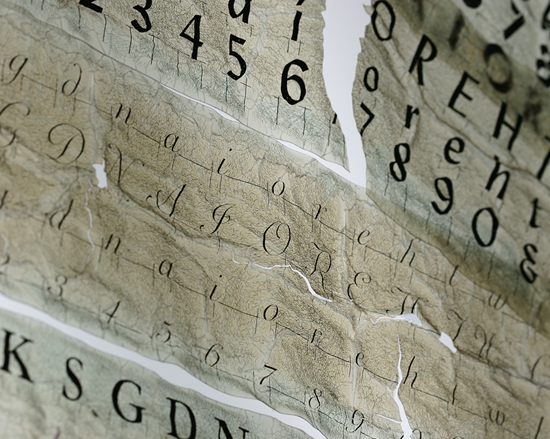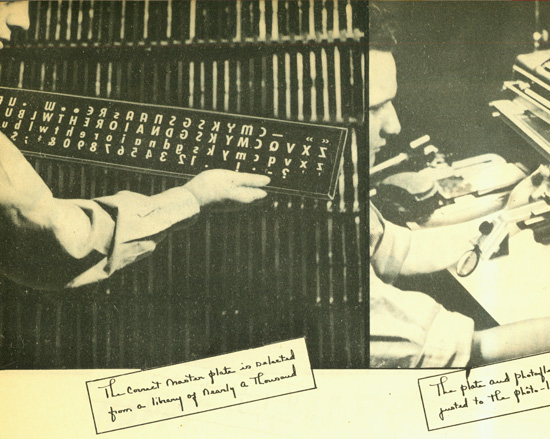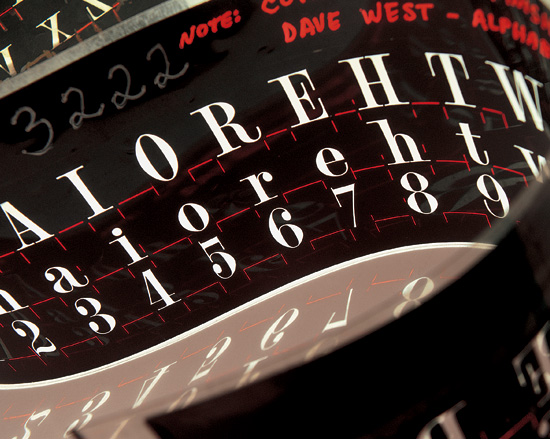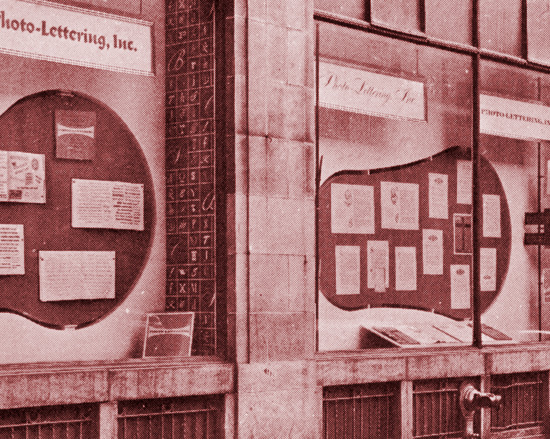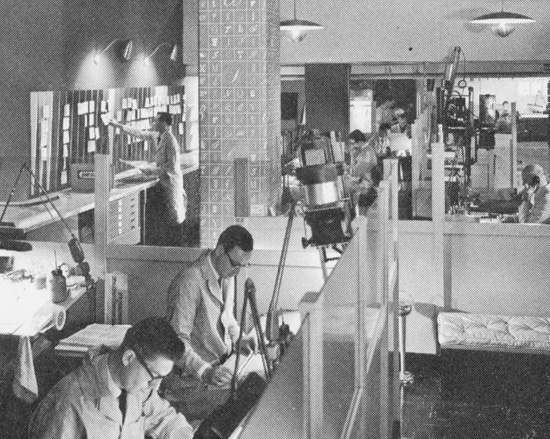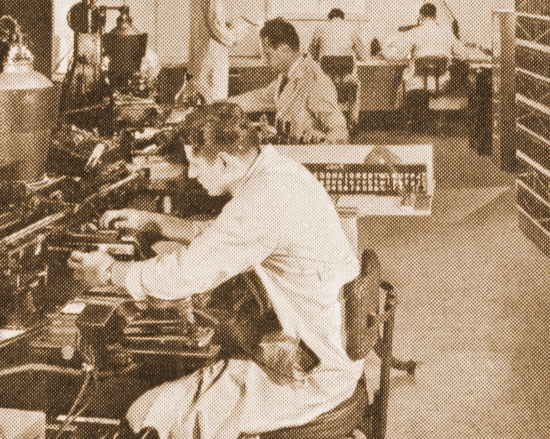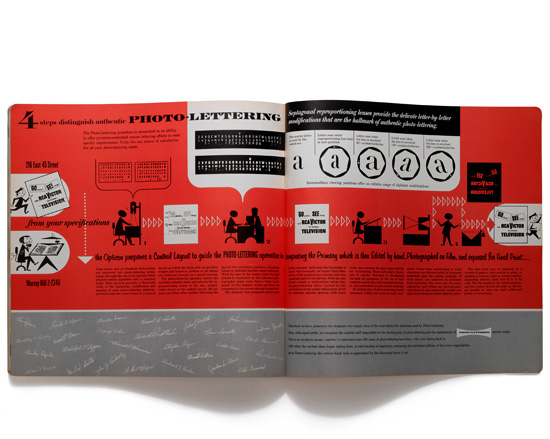
Photo-Lettering was one of the earliest and most successful type houses to utilize photo technology in the production of commercial typography and lettering. Photo-Lettering enjoyed a significant advantage over its competitors with its purpose-built exposure units, expert staff and a sophisticated workflow.
PLINC, as it was affectionately known to art directors, was a mainstay of the advertising and design industry in New York City from 1936 to 1997. In the days before facsimile, flatbed scanners and email, copper borne telephone instructions buzzed beneath the streets while couriers beat a well-worn path between Madison Avenue advertising agencies and Photo-Lettering’s Murray Hill facility.
Each of Photo-Lettering’s alphabets took over 200 hours to complete, originally drawn with pen and ink by veteran lettering artists. These alphabets were originally exposed on glass plates, but eventually were converted to film. Photo-Lettering films are approximately 28 in (71 cm) wide by 5 in (13 cm) tall.
After receiving an art director's instructions by telephone (imagine that) or courier, a Photo-Lettering artist would compose a tight comprehensive. This was done using a smaller version of the alphabet film called a layout plate and a specialized device called an Opticon to project a sharp image of each character with which to create a penciled version of the headline.
The composed headline was then handed off to an operator of a proprietary purpose-built exposure unit called The Rutherford, which was named after the New Jersey tri-city area in which it was invented. The Rutherford allowed an operator to expose characters directly from original films while following penciled comprehensives from the Opticon.
The Rutherford was a key instrument in Photo-Lettering’s reputation for delivering clean, crisp, high quality artwork because it always provided a first-generation exposure of each character. Most Photo-Lettering competitors manually composed headlines by manually pasting each letter. By the time process lettering reached the customer it was at the very least four times photographically removed from the original.
Before making the run back into Madison Avenue's busy warren of advertising agencies, a Photo-Lettering artist would check each headline and make manual corrections as needed. This critical part of Photo-Lettering’s workflow is a historical lesson that has been lost on the digital generation of desktop designers.
This spread from a Photo-Lettering catalog illustrates the process. While art directors barking headline instructions may not have looked as happy as they are represented here, a courier returning a perfectly-rendered headline must have put a smile on their faces. The advent of digital desktop typography dramatically and catastrophically removed this level of professionalism and its finely-tuned set of checks and balances from display lettering.
Even in 1970 dollars, a headline from Photo-Lettering was a steal considering the effort dedicated to each project.
House Industries’ relationship with Photo-Lettering began indirectly in 1999 with an article on Ed Benguiat for the second issue of our now-defunct House magazine. Ed penned the original logo for pop-culture classic Planet of the Apes, so we illustrated him as a learned Doctor Zaius. Stories that went along with Ed's thirty years as Photo-Lettering's alphabet genius-in-residence inspired us to dig deeper into PLINC’s legacy of letters.
Ed Benguiat became our emissary to the forgotten Photo-Lettering world, and in 2002 House lettering guru Ken Barber began distilling five of Benguiat’s PLINC alphabets into digital fonts. It was our first exercise in taking an alphabet that was originally engineered with PLINC’s workflow in mind and digitally bypassing the human element with modern application- and system-side engineering.
Starting with Photo-Lettering catalogs, several period specimens and some moral support from Ed Benguiat, Ken Barber started the process of interpreting and redrawing each of the five alphabets.
Since we did not have access to the original Photo-Lettering films at the beginning of the project, Ken’s challenge was to to interpret Benguiat’s original alphabets from small one-line showings and random specimens from Photo-Lettering catalogs and collateral.
Ken Barber and typographical codebreaker Tal Leming set out to devise a complex multi-layered substitution script that makes interlocking decisions. By combining Ken's lettering skill and Tal’s technical prowess, we created the prototype for what would become the digital version of Photo-Lettering’s workflow. This was and still is one of the most elegant applications of OpenType features in a commercial typeface.
Those who cough up House’s shipping fee when ordering the Ed Benguiat fonts are treated to forty-five minutes of audio interviews covering everything from blowing up German bridges as a P-51 pilot to dreaming up psychedelitypes while hanging upstate with Timothy Leary.
Mr. Rondthaler was kind enough to record over sixteen hours of audio tape and allow us to spend a day with him in his Croton-on-Hudson home with a film crew. Ed passed away in 2009 at the age of 104.
We recommend Ed Rondthaler's Life with Letters for those who wish to dig deeper into Photo-Lettering's history. This well written autobiographical volume contains countless 20th Century anecdotes about lettering, graphic design, visual tricks and business ethics that are valid in any millenium.